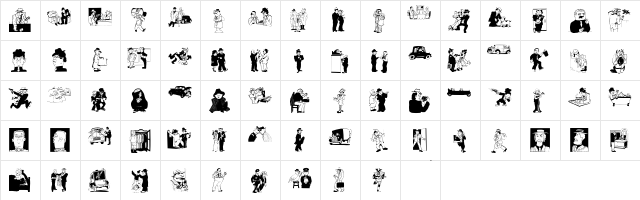
GangsMembers Regular
Design Context for GangsMembers Typeface
GangsMembers is a composed and adaptable typeface that performs quietly and consistently across a wide range of design contexts.